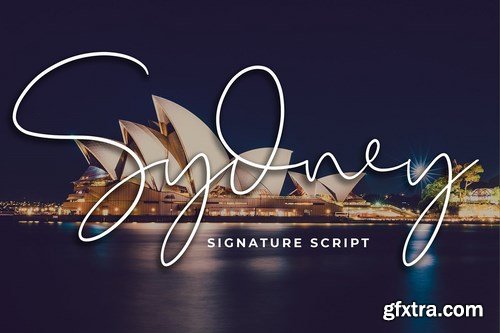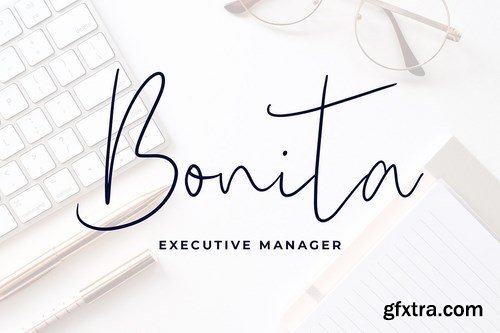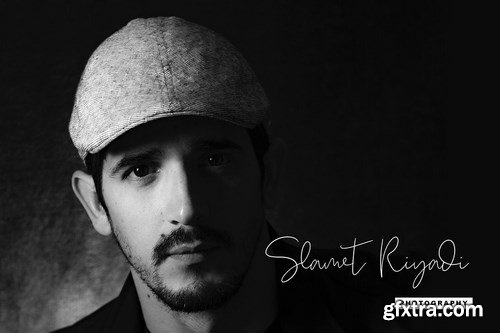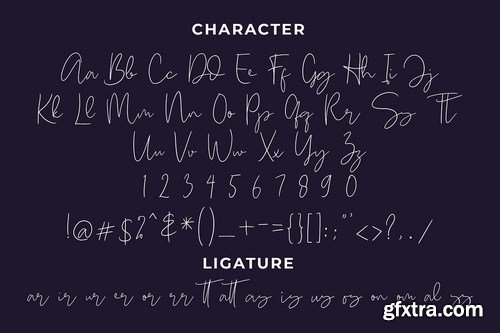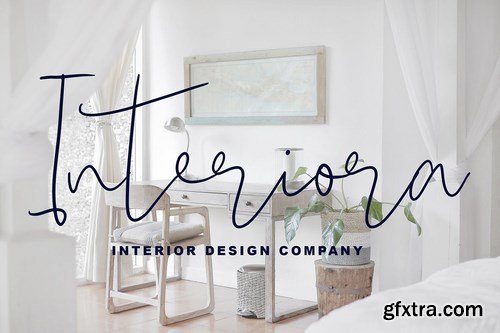
Sydney Signature Script Font is an exciting handwritten font with signature style. Fall in love with its elegantly playful nature!
Sydney Signature Script Font is perfect for branding projects, logo, wedding designs, social media posts, advertisements, product packaging, product designs, label, photography, watermark, invitation, stationery and any projects.